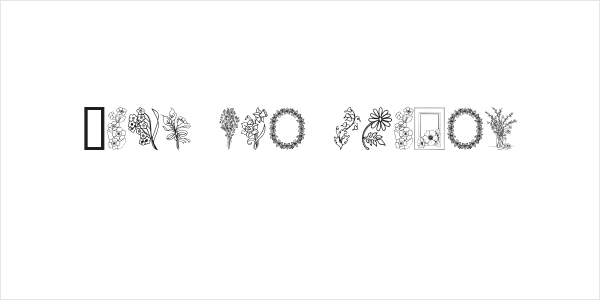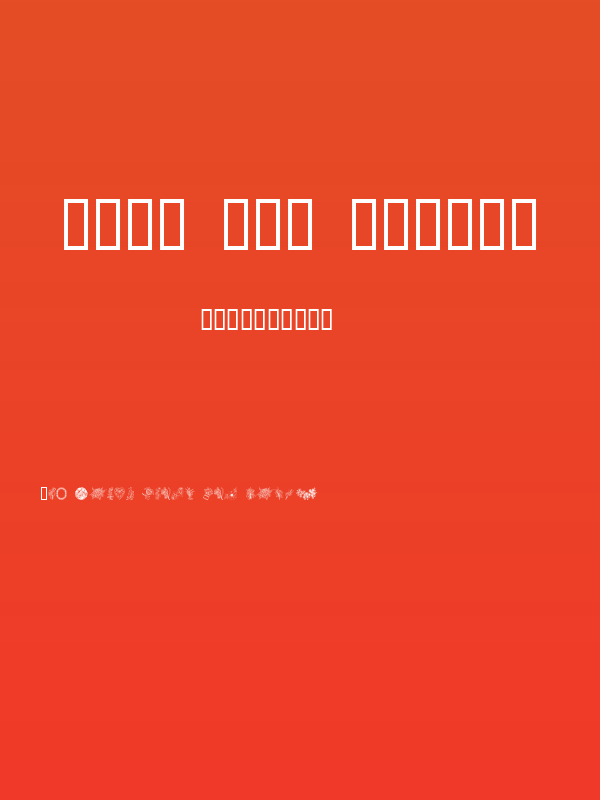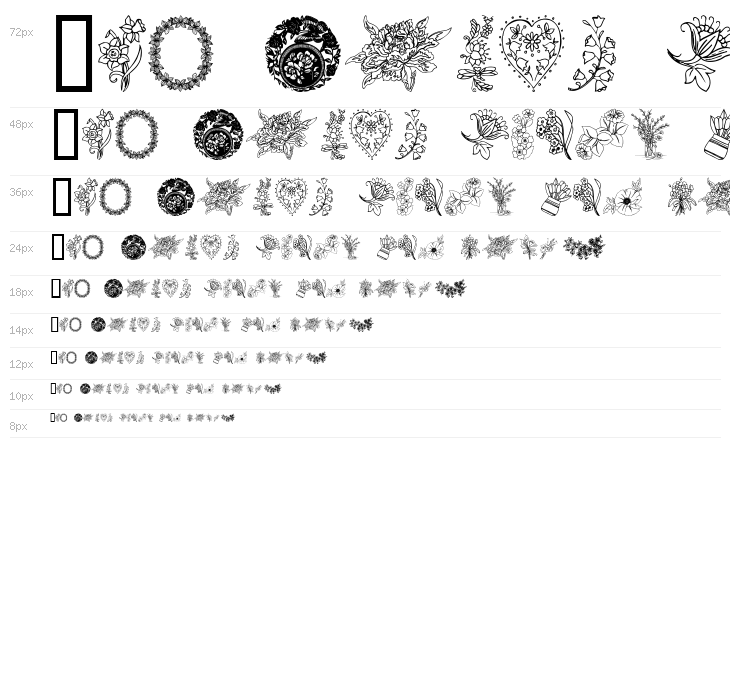
From the garden Font
From the garden Description
A decorative display set featuring hand-drawn floral illustrations, each glyph represented by a unique bouquet, wreath, or flower arrangement. The style is delicate, organic, and detailed, with fine lines and naturalistic forms. There are no traditional letterforms; instead, each character is a distinct botanical drawing.
| Overall Style | Decorative, Organic, Hand-drawn |
| Use Case | Decorative elements, Illustrative initials, Themed graphics |
| Proposed Projects | Wedding invitations, greeting cards, botanical branding, decorative posters, scrapbooking, event signage. |